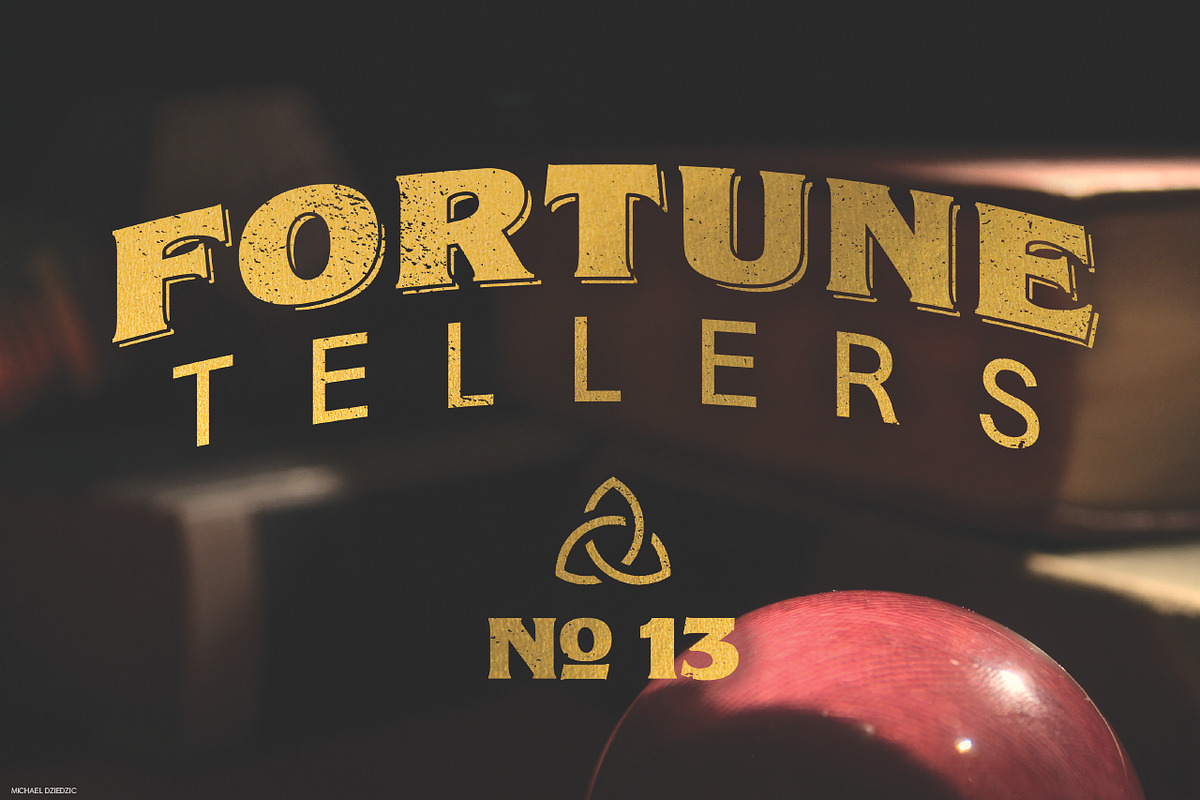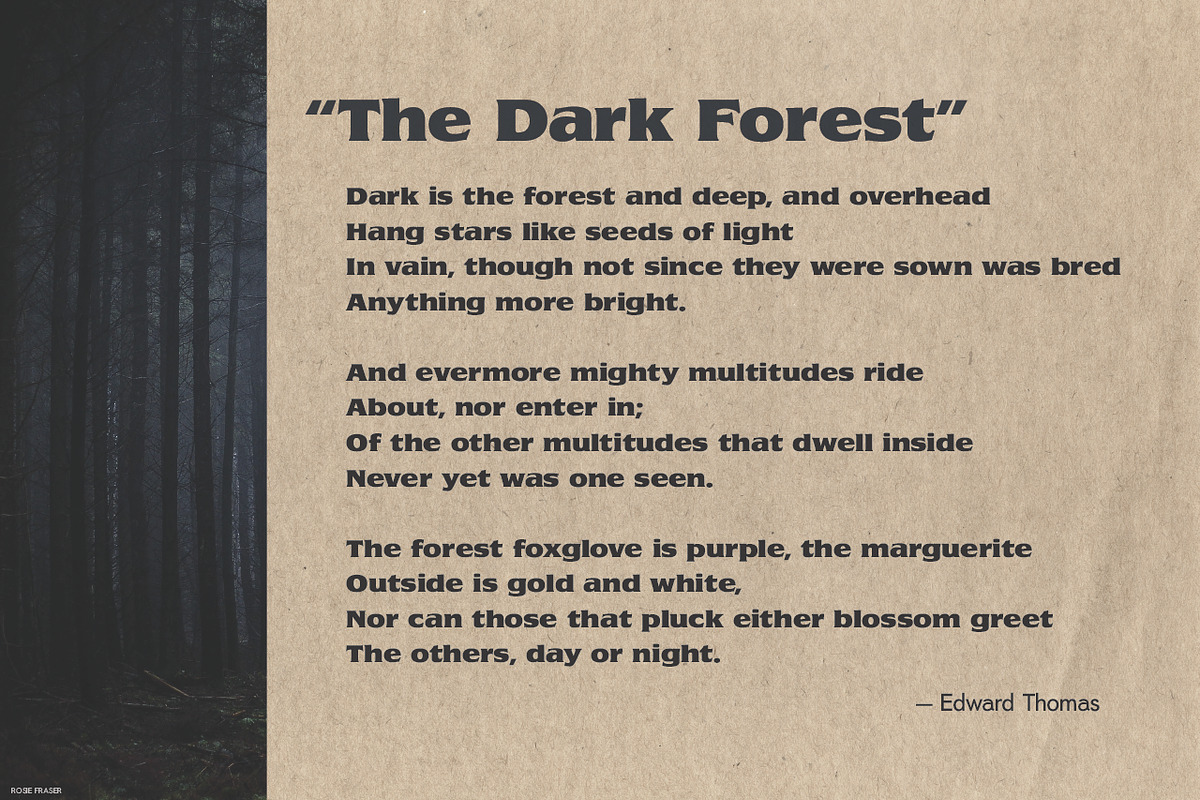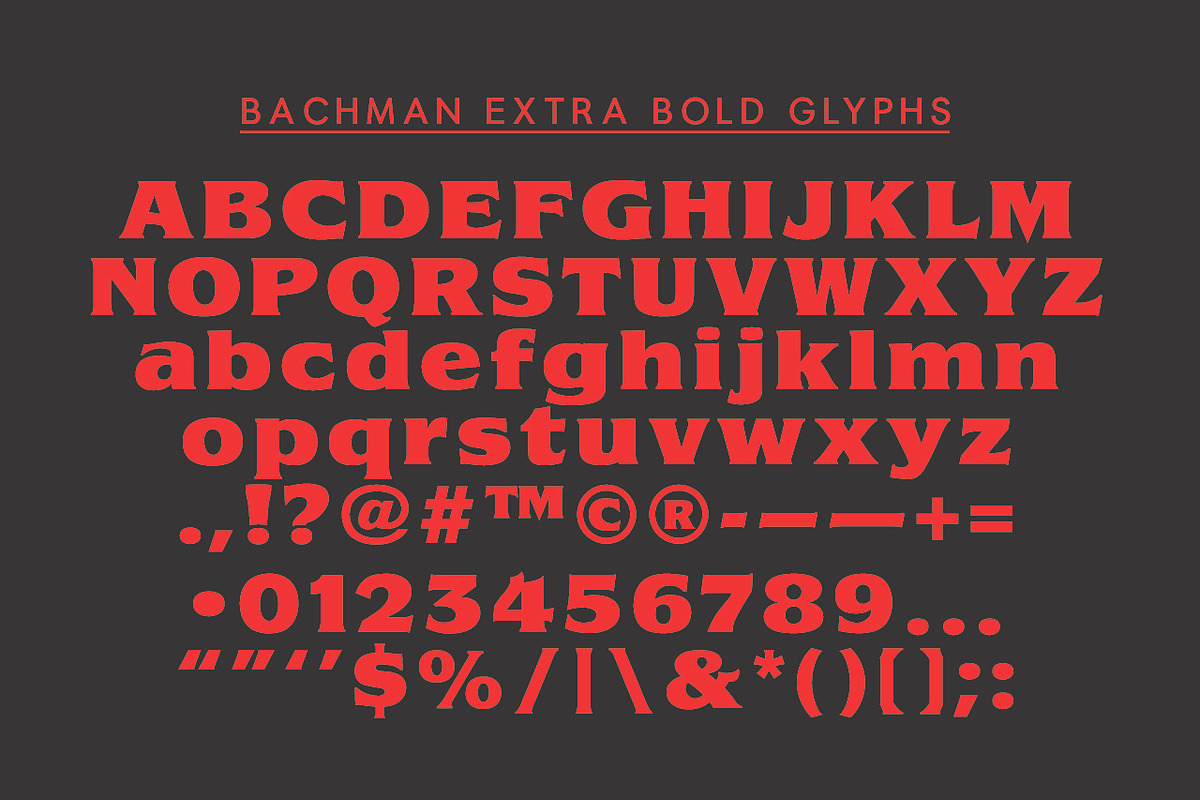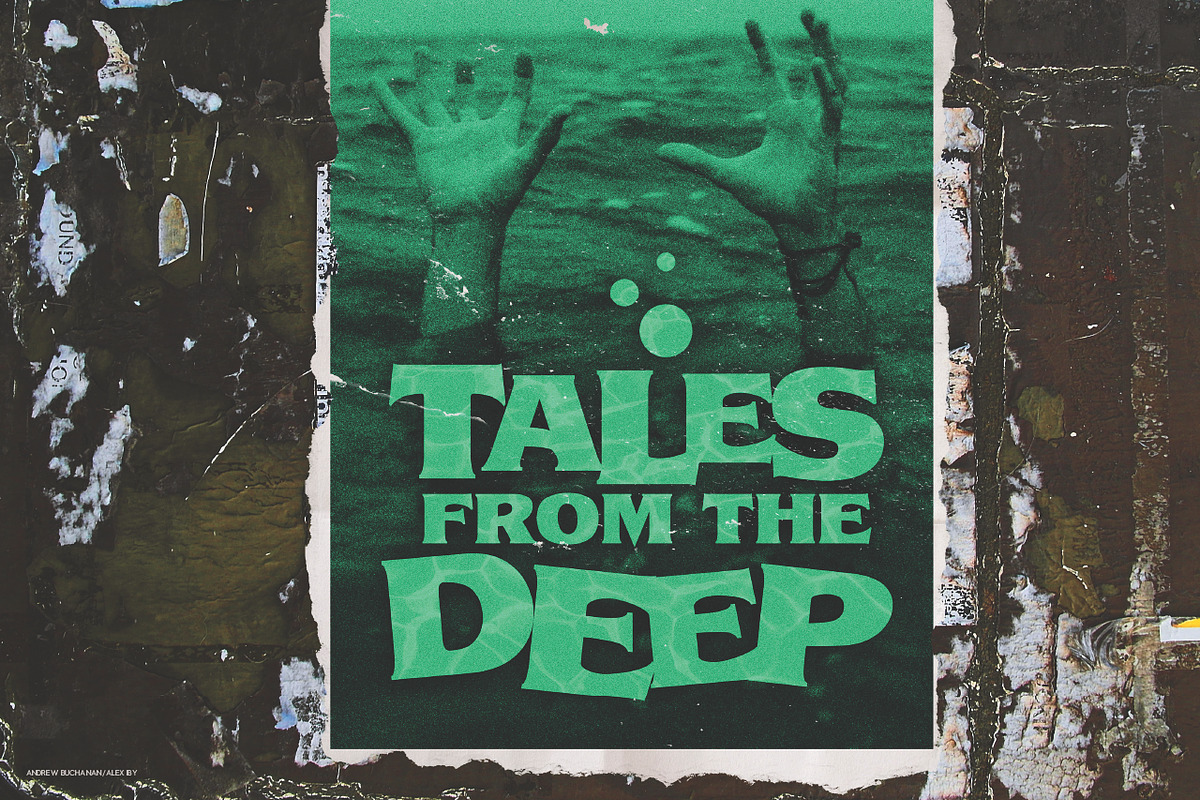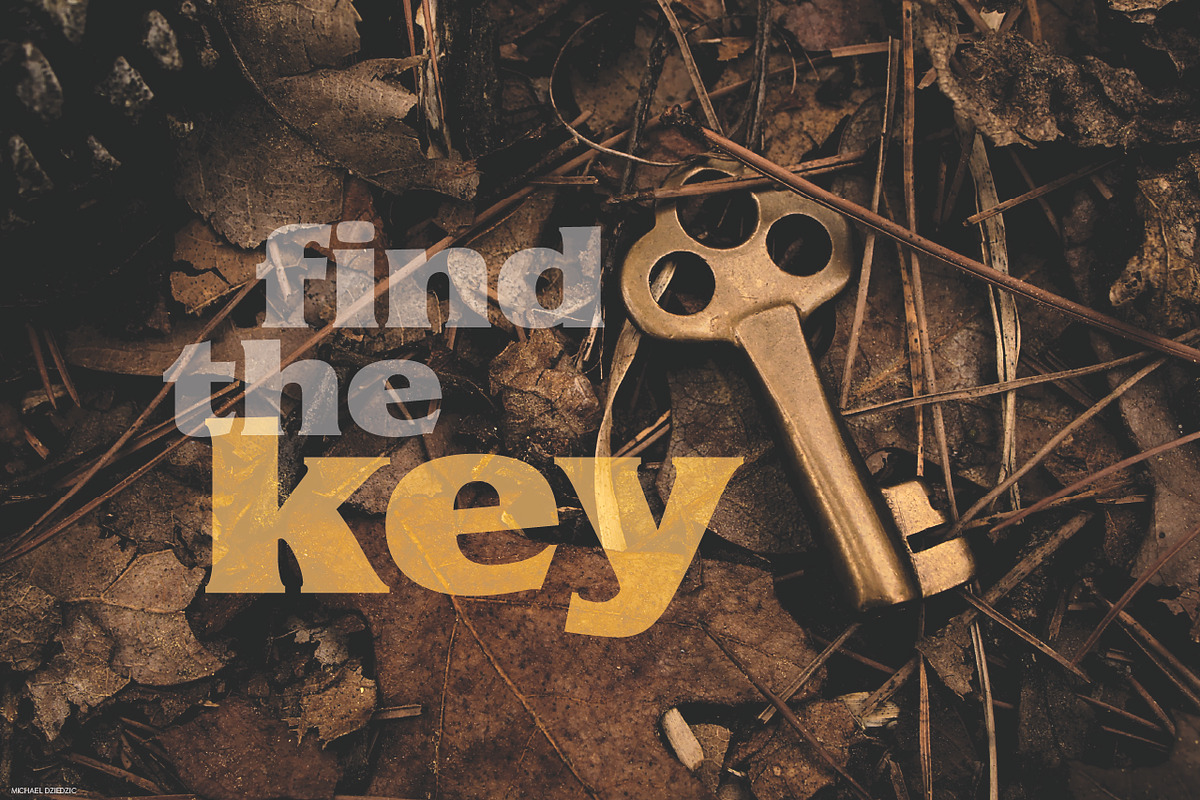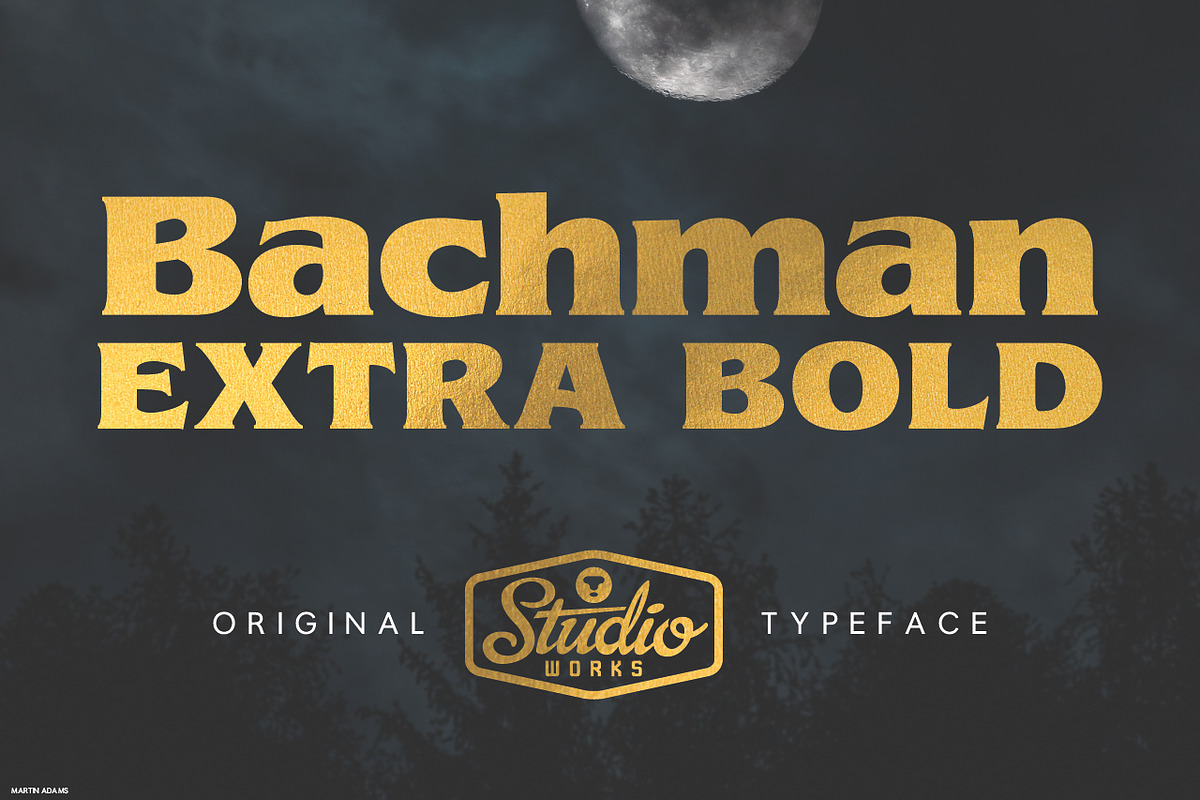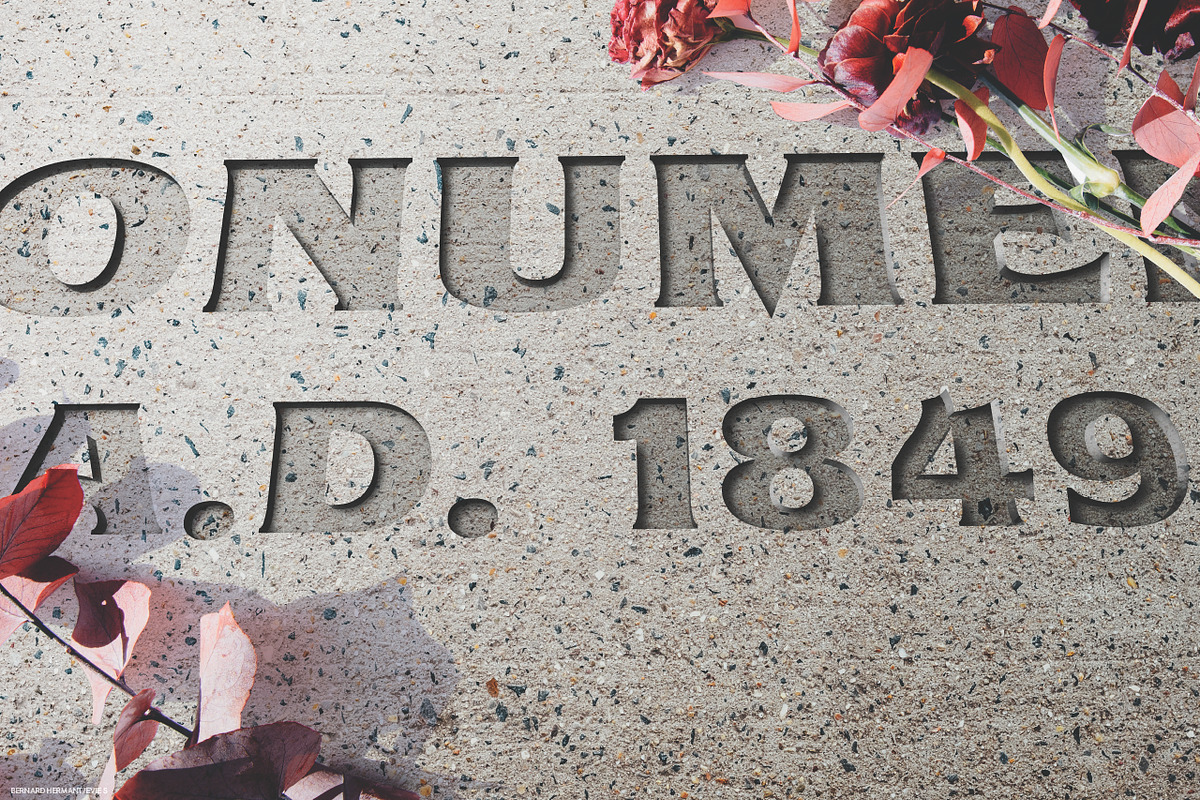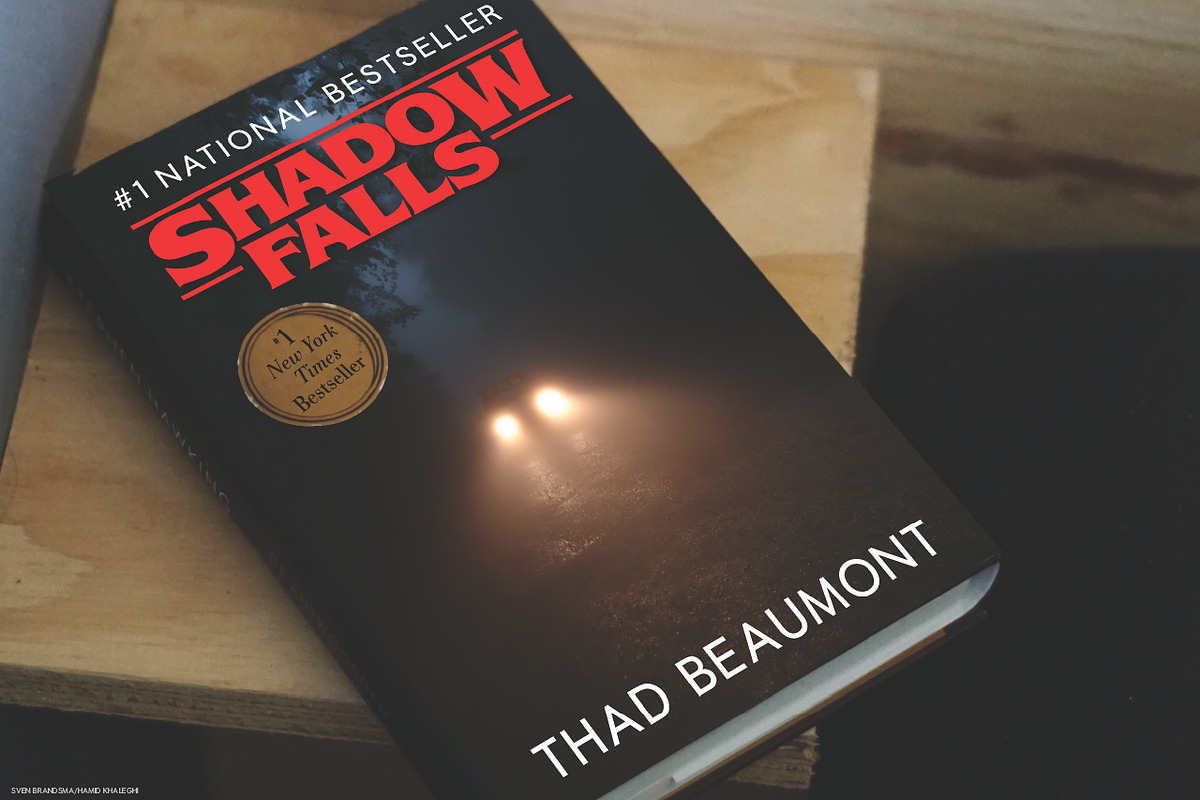
Bachman | Dark Display Type!
Introducing — B A C H M A N — a robustly dark display typeface
Like a good thriller, Bachman features a deliciously dark and heavy display face powerful enough to transform any tome into an epic page-turner. Use it for commanding text on book covers, movie posters, brand identities and store signage to promote your message with strength and authority.
Inspired by the sharp-serifed titles of horror and pulp novels of the 70s and 80s, Bachman taps into the dark energy of contemporary authors of the macabre with classically styled characters.